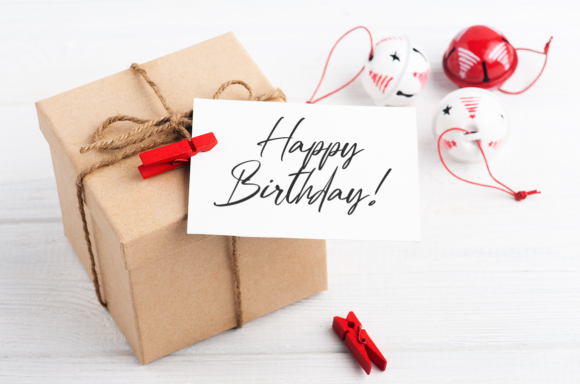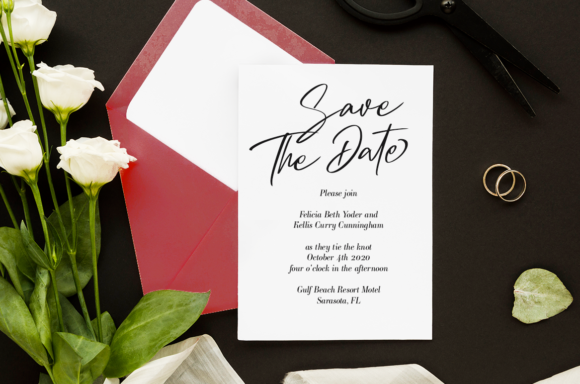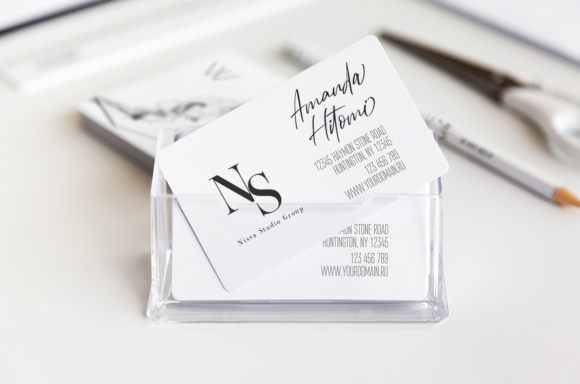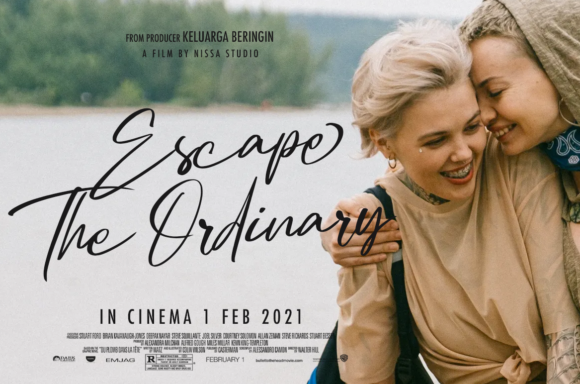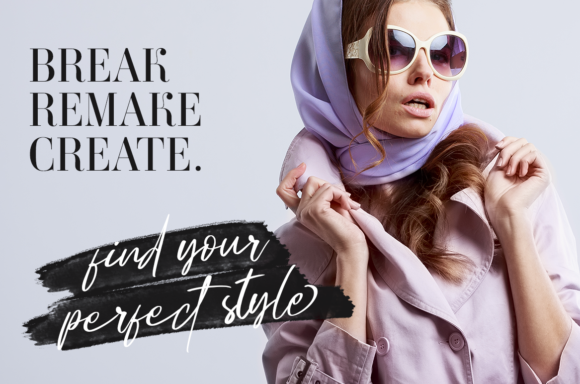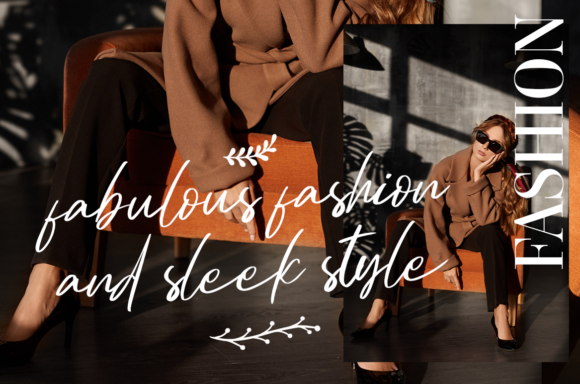
Introducing Ambitive Font: Elevate Your Designs with Elegance and Versatility
Are you on the hunt for a font that embodies sophistication and elegance? Look no further than Ambitive Font, a truly outstanding script font that simplifies luxury into a versatile and captivating design. In this article, we’ll dive into the world of Ambitive, exploring its features, uses, and benefits for designers and crafters alike.
What is Ambitive Font?
Ambitive Font is a meticulously crafted script font that exudes refinement and poise. Its unique blend of classic and modern elements makes it an exceptional choice for a wide range of design projects. Whether you’re creating wedding invitations, stationery art, social media posts, or any other visual content, Ambitive is sure to impress.
The Versatility of Ambitive
One of the standout features of Ambitive Font is its incredible versatility. This font is designed to adapt to various design contexts, making it an excellent addition to any designer’s toolkit. Here are just a few examples of how you can use Ambitive:
- Wedding Invitations: Create stunning wedding invitations that set the tone for a luxurious and unforgettable celebration.
- Stationery Art: Add a touch of elegance to your stationery, journals, and planners with Ambitive’s beautiful script.
- Social Media Posts: Elevate your social media game with eye-catching posts that showcase your brand’s personality and style.
- Branding and Packaging: Use Ambitive to create cohesive and sophisticated branding materials, including logos, business cards, and product packaging.
Why Choose Ambitive Font?
With so many fonts available, what sets Ambitive apart? Here are just a few reasons why designers and crafters love Ambitive:
- Unique Character: Ambitive boasts a distinct and captivating character that adds a touch of sophistication to any design.
- Ease of Use: This font is incredibly easy to read and works beautifully in both digital and print formats.
- Highly Versatile: Ambitive can be used for a wide range of design projects, from elegant wedding invitations to bold social media posts.
- Exceptional Quality: Ambitive Font is crafted with attention to detail, ensuring a high-quality design that will elevate your work.
Tips for Using Ambitive Font
To get the most out of Ambitive Font, here are a few tips to keep in mind:
- Experiment with Sizes: Ambitive looks stunning in a variety of sizes, so don’t be afraid to experiment and find the perfect fit for your design.
- Pair with Complementary Fonts: Combine Ambitive with complementary fonts to create visually appealing and harmonious designs.
- Play with Colors: Ambitive works beautifully with a range of colors, so don’t be afraid to get creative and try out different palettes.
Ambitive Font is a game-changer for designers and crafters looking to elevate their work with elegance and versatility. With its unique character, ease of use, and high-quality design, Ambitive is the perfect choice for a wide range of design projects. Whether you’re creating wedding invitations, stationery art, or social media posts, Ambitive is sure to impress. So why wait? Fall in love with Ambitive Font and take your designs to the next level!